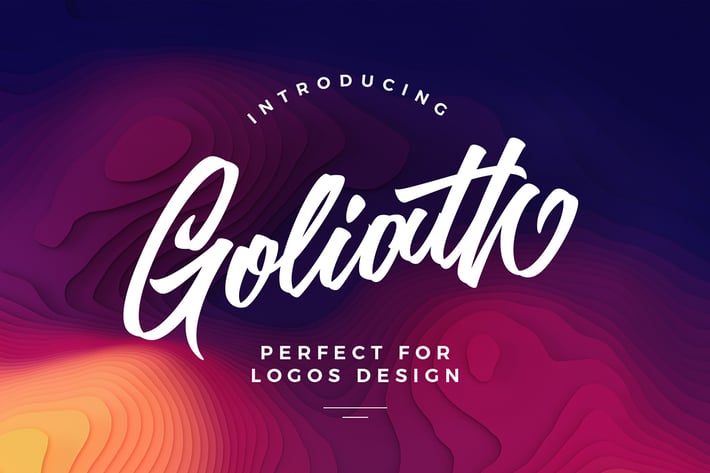
Goliath script font
Goliath is the font pack. The Regular font combines with the alternate character font to make each word unique. Then add the Splashes font as your tagline and — the ideal logo!
Splashes (.ttf & .otf) Perfectly combine with Emerald to create cool - typography or logo design.